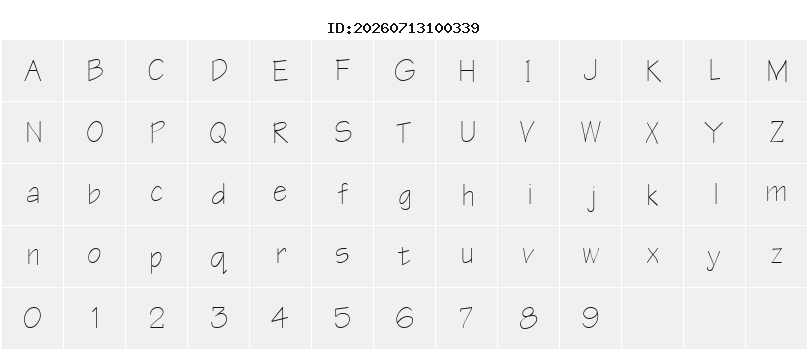
Rapunzel Preview
About Rapunzel.ttf
Rapunzel.ttf is a modern, elegant sans-serif font designed for ultimate readability and visual harmony. Perfect for branding, headlines, web design, and print materials.